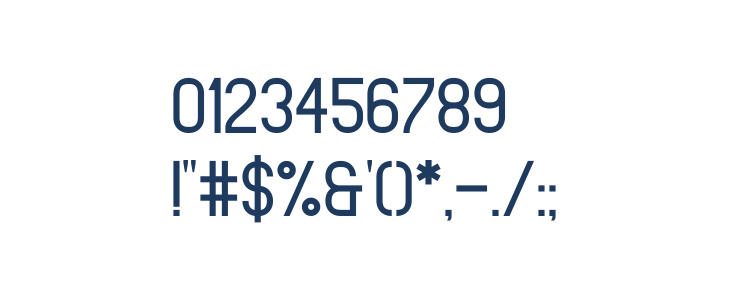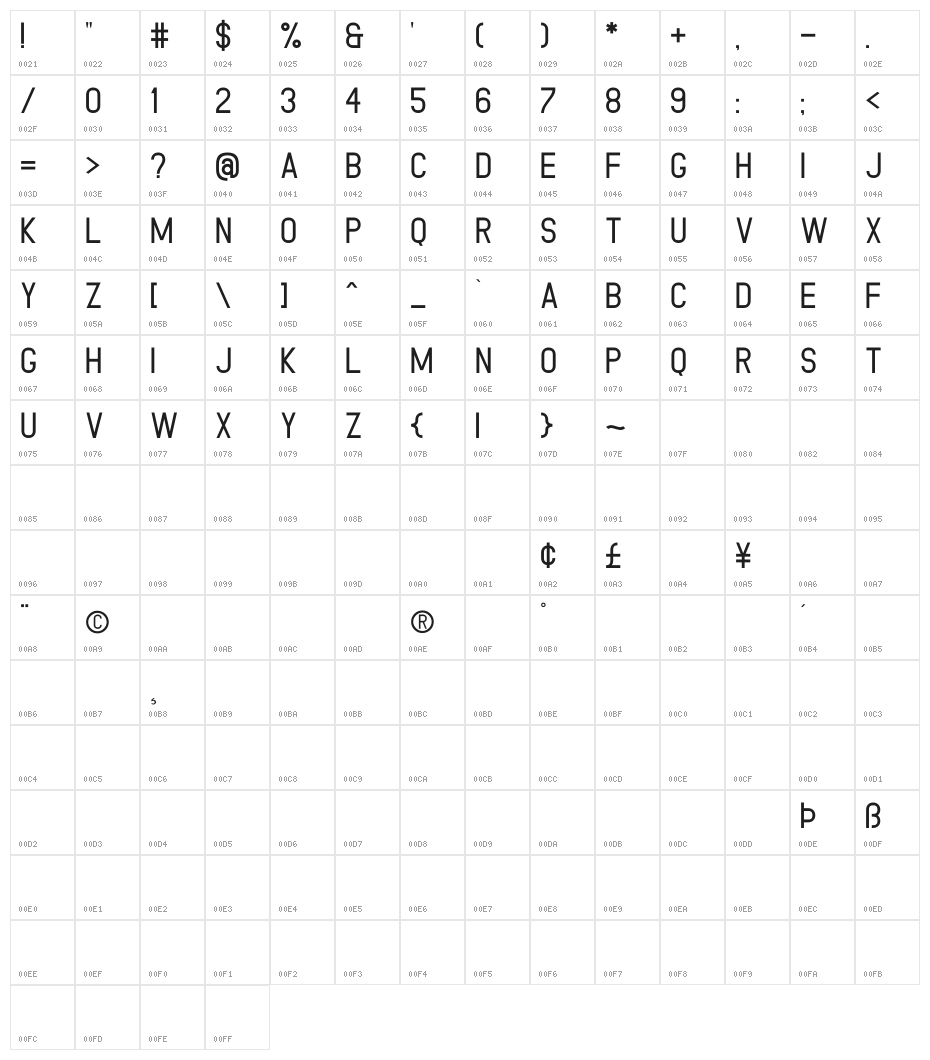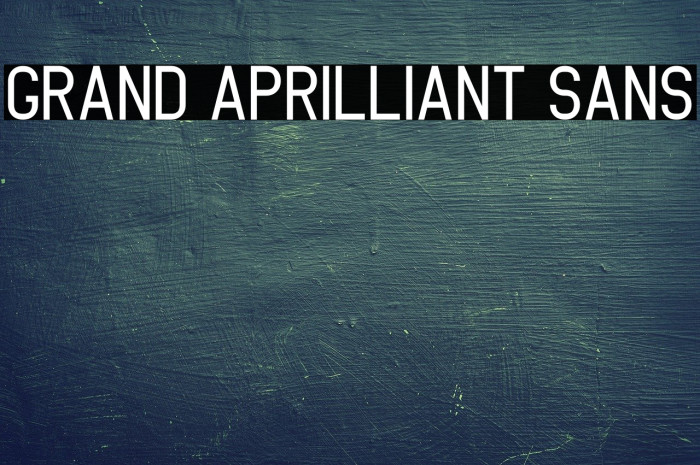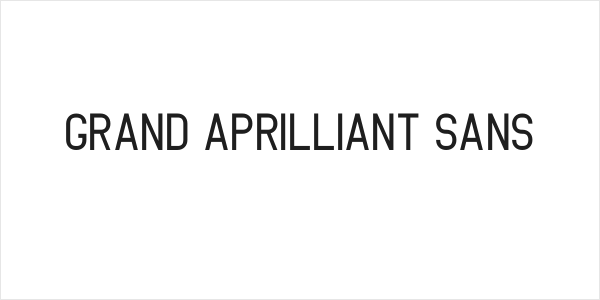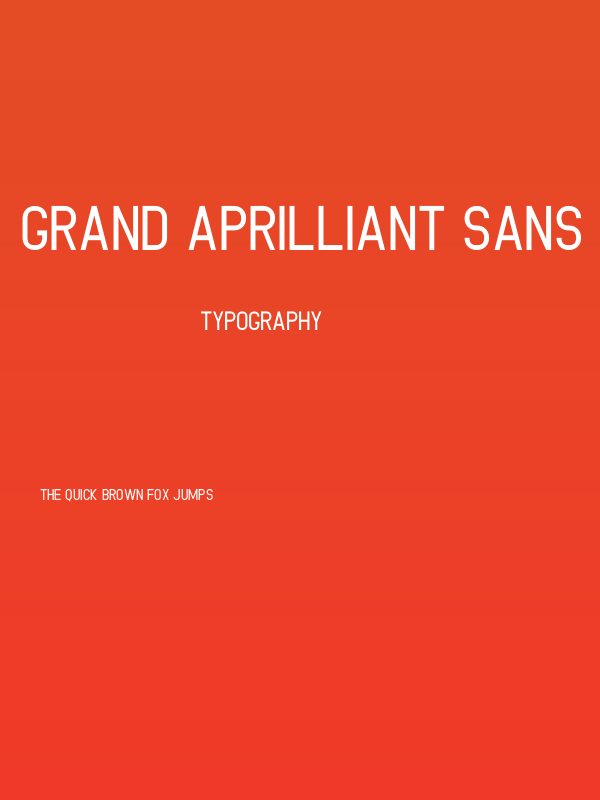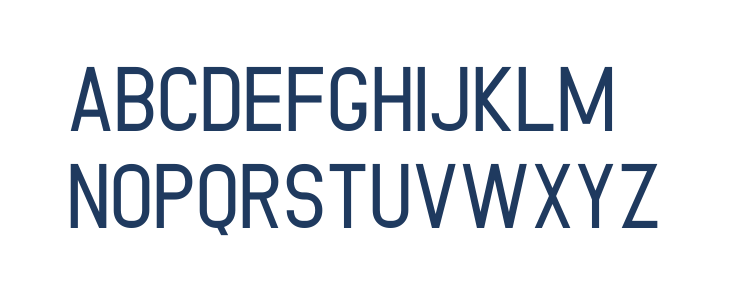
This font features a clean, modern sans-serif style with a geometric structure. The characters are uniform in height, with consistent stroke widths that give it a balanced and harmonious appearance. The uppercase letters are bold and assertive, while the lowercase letters maintain a similar weight, ensuring readability and clarity. The numerals are straightforward and align well with the overall design, making them suitable for various applications. Special characters are included, maintaining the same geometric and minimalistic aesthetic, which enhances the font's versatility.
Use CaseHeadlines, Logos, Branding
Proposed ProjectsIdeal for branding, advertising, web design, and editorial layouts where clarity and modernity are key.